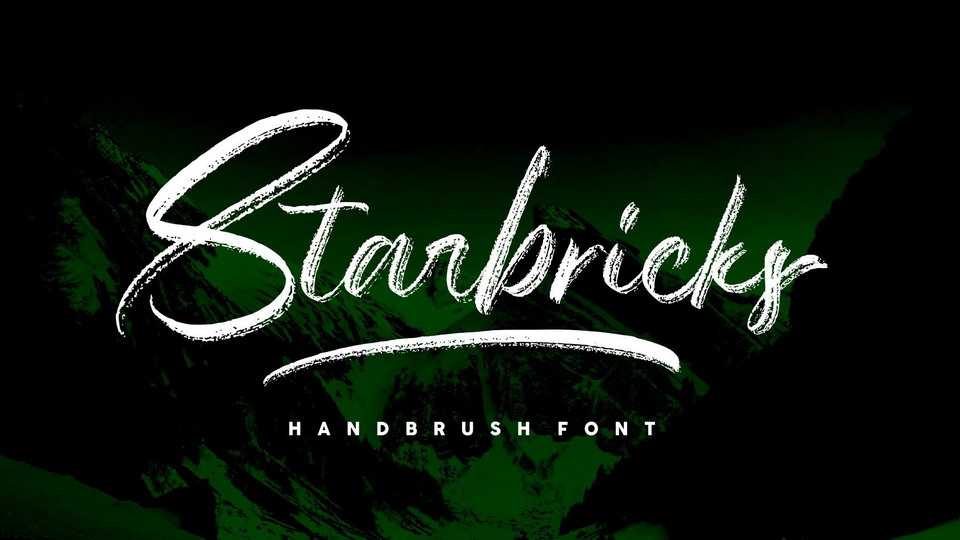
Download Starbricks font, an impressive script made with natural handbrushes. Detailed dry brushes strokes, unique Opentype features, the ligatures will add aesthetic value to your design product. With Swashes you can unite into an amazing design.
Designer: Garisman Studio